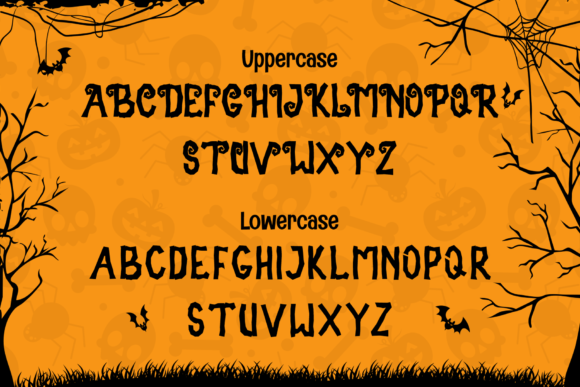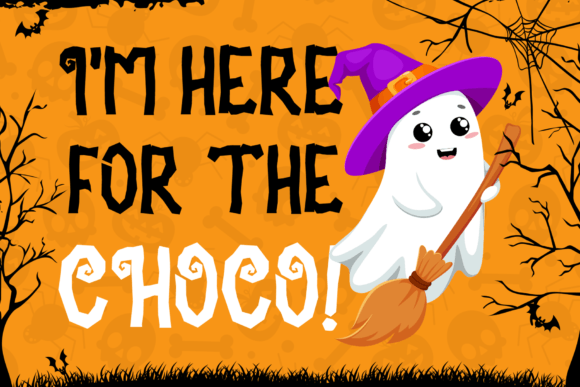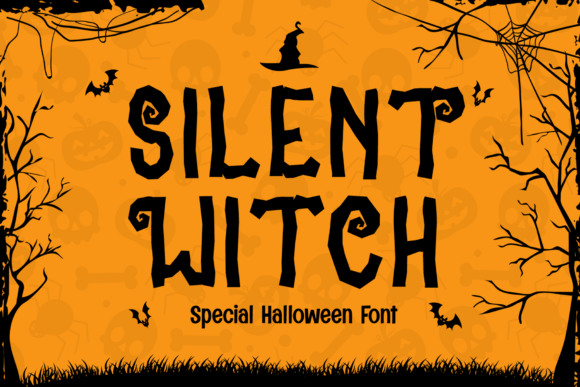
Silent Witch Font
Silent Witch Font, an enchanting display font sure to cast a spell this Halloween season. This unique font effortlessly couples the thrill of creepiness with an appealing whimsical charm. Every uppercase letter comes beautifully fashioned with fanciful curls, granting **Silent Witch** an irresistible allure that does not shy away from making a statement. It seamlessly transforms any Halloween design, right from invitations to posters, decors, and beyond, into enchanting pieces of art. If you’re fashioning an invite for a kid’s Halloween extravaganza or designing a festive greeting, Silent Witch with its eclectic style will rouse the ideal balance of cheer and scare in your masterpiece.